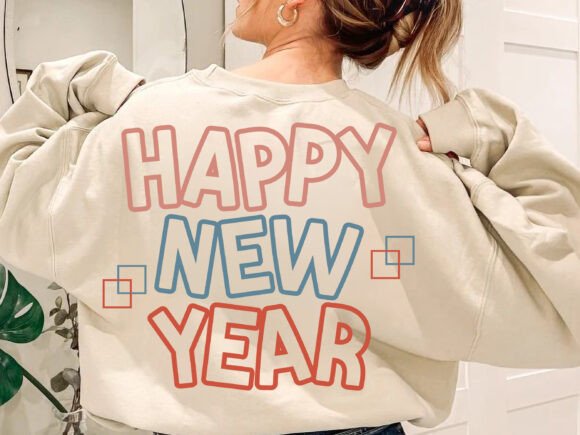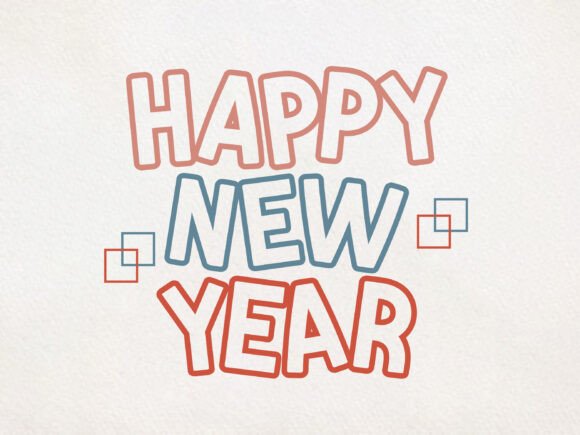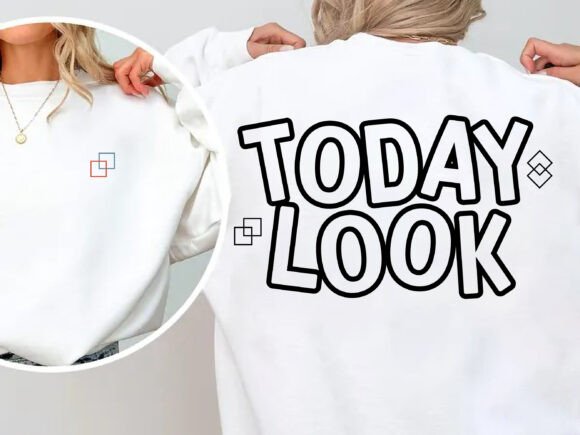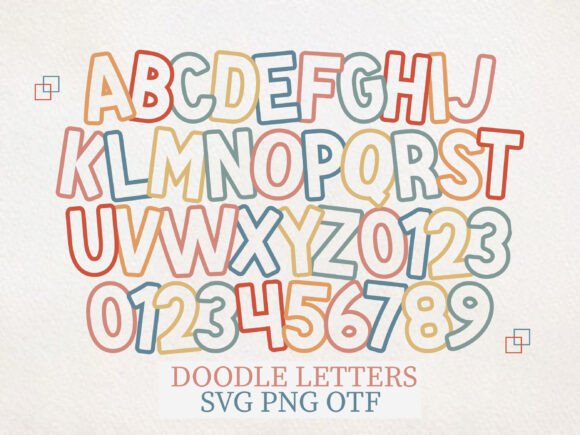
Doodle Letters Font: Add a Touch of Whimsy to Your Creations
Are you looking for a font that can add a playful and magical touch to your designs? Look no further than Doodle Letters Font! This cool lettered and display font is perfect for designers and crafters who want to create unique and eye-catching projects. In this article, we’ll explore the features and benefits of Doodle Letters Font and show you how to use it to take your creations to the next level.
What is Doodle Letters Font?
Doodle Letters Font is a fun and creative font that is perfect for a variety of design projects. Its playful details and whimsical style make it ideal for adding a touch of magic to your creations. Whether you’re working on a T-shirt design, branding project, or custom DIY craft project, Doodle Letters Font is sure to impress.
Key Features of Doodle Letters Font
- Playful Details: Doodle Letters Font features playful details that add a touch of whimsy to your designs. From subtle doodles to intricate patterns, this font has everything you need to create unique and eye-catching projects.
- Cool Lettered and Display Font: Doodle Letters Font is a cool lettered and display font that is perfect for headlines, titles, and other design elements. Its bold and playful style makes it easy to read and understand.
- Magical Style: Doodle Letters Font has a magical style that is perfect for seasonal designs, Happy New Year quotes, and other festive projects. Its whimsical details and patterns add a touch of enchantment to your creations.
Uses for Doodle Letters Font
Doodle Letters Font is a versatile font that can be used for a variety of design projects. Here are some ideas to get you started:
- T-Shirt Designs: Add a playful touch to your T-shirt designs with Doodle Letters Font. Its bold and whimsical style makes it perfect for creating eye-catching and unique designs.
- Branding Projects: Use Doodle Letters Font to create a memorable and playful brand identity. Its magical style and playful details make it perfect for businesses that want to stand out.
- Custom DIY Craft Projects: Doodle Letters Font is perfect for custom DIY craft projects, such as handmade cards, gift tags, and other paper crafts. Its whimsical style and playful details add a touch of personality to your creations.
- Happy New Year Quotes: Ring in the new year with a playful and festive design featuring Doodle Letters Font. Its magical style and whimsical details make it perfect for creating unique and eye-catching quotes.
Tips for Using Doodle Letters Font
Here are some tips for using Doodle Letters Font in your designs:
- Experiment with Colors: Doodle Letters Font looks great in a variety of colors. Experiment with different color combinations to find the perfect look for your design.
- Mix and Match: Don’t be afraid to mix and match Doodle Letters Font with other fonts and design elements. Its playful style and whimsical details make it perfect for pairing with other creative elements.
- Keep it Simple: While Doodle Letters Font is perfect for creating complex and intricate designs, it can also be used to create simple and elegant designs. Keep your design simple and let the font do the talking.
Doodle Letters Font is a fun and creative font that is perfect for designers and crafters who want to add a playful and magical touch to their designs. Its playful details, cool lettered and display style, and magical style make it ideal for a variety of design projects. Whether you’re working on a T-shirt design, branding project, or custom DIY craft project, Doodle Letters Font is sure to impress. So why wait? Download Doodle Letters Font today and start creating unique and eye-catching designs!